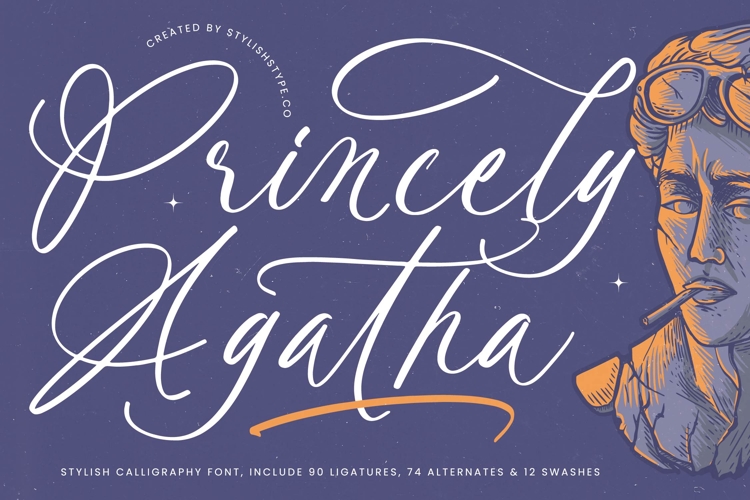
Princely Agatha - Stylish Calligraphy Font
Elevate your creative vision with a typeface that embodies sophisticated elegance and fluid movement. Princely Agatha - Stylish Calligraphy Font offers a refined aesthetic that captures the essence of contemporary calligraphy, making it a standout choice for designers seeking visual excellence. Its dynamic strokes and graceful curves provide a handcrafted charm that resonates deeply with high-end audiences across all digital and print media.
Precision-engineered for high-impact visual communication, this typeface is the ultimate choice for luxury branding and premium packaging. Princely Agatha - Stylish Calligraphy Font is perfect for editorial design, upscale invitations, and sophisticated logo development where a bespoke feel is paramount. Whether you are crafting a brand identity for a boutique or a layout for a fashion magazine, its distinctive character ensures your message is delivered with unparalleled style.
Unrivaled technical versatility meets global accessibility through a comprehensive feature set that includes 90 ligatures, 74 alternates, and 12 swashes. With its extensive multilingual support, Princely Agatha - Stylish Calligraphy Font adapts seamlessly across global markets, making it incredibly versatile for international projects. This technical precision allows for flawless legibility and creative customization, ensuring that Princely Agatha - Stylish Calligraphy Font remains highly functional across various production environments.
Transform ordinary layouts into extraordinary masterpieces with this essential design asset that bridges the gap between classic tradition and modern flair. The captivating flow of Princely Agatha - Stylish Calligraphy Font provides an instant upgrade to any creative project, offering the artistic flair needed to dominate a competitive market. Invest in Princely Agatha - Stylish Calligraphy Font today to bring a timeless sophistication and professional edge to your permanent design portfolio.